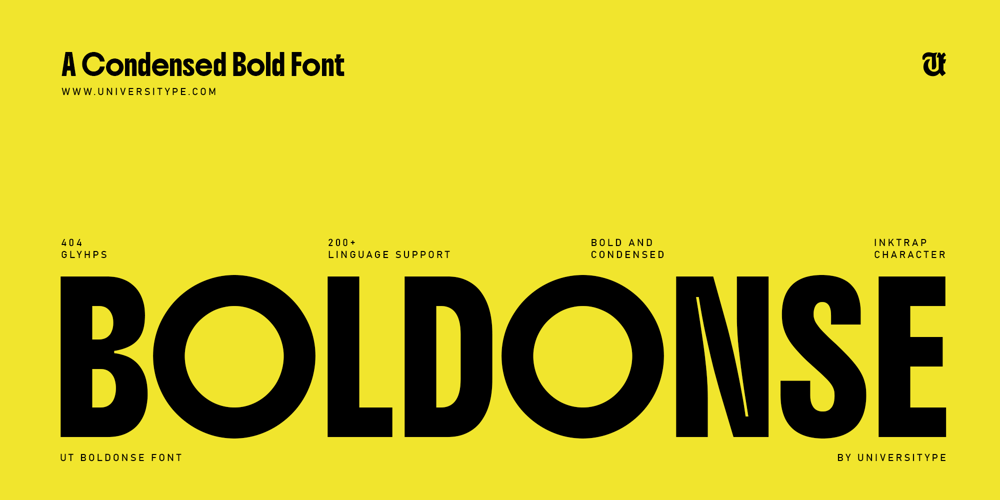
UT Boldonse Font Family was designed by Muh. Aswar, Novan Arisandi and published by Universitype. UT Boldonse contains 1 styles and family package options. UT Boldonse: Bold and FunUT Boldonse is a bold, condensed sans serif font that adds personality and strength to your designs. It’s not just a font—it’s the tool that makes your work stand out.Why You Need UT BoldonseLooking for something eye-catching and unique? UT Boldonse is perfect. Its bold, condensed style grabs attention, while playful inktrap details give it a fun vibe. With UT Boldonse, your designs will always be noticed.What Makes UT Boldonse Special?This font is made to make an impact while staying easy to read. Its compact shape fits in tight spaces, and those inktrap details make it both stylish and functional. Here’s why it stands out: Bold and Condensed: Perfect for headlines and logos. Fun Inktrap Details: Boost readability with a unique look. Many Characters: 404 glyphs for over 200 languages. Easy to Read: Clear, even in tight spaces. Where to Use UT BoldonseThis font is super versatile: Logos and Branding: Make your brand unforgettable. Posters and Headlines: Get attention with bold, clear text. Print and Digital: Looks great everywhere. Why you will Love UT BoldonseDesigners love UT Boldonse because it’s more than just a font: Fits Any Style: Perfect for tech or creative projects. Clear and Sharp: Easy to read, even in small spaces. Unique Look: The inktrap details set it apart. Imagine UT Boldonse in Your Work Bold headlines in magazines. A standout logo for a tech brand. Social media graphics that grab attention. Add UT Boldonse to your designs today and make them unforgettable!